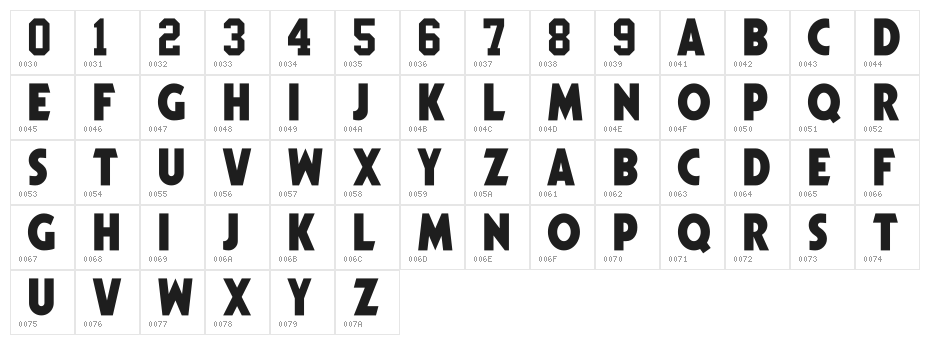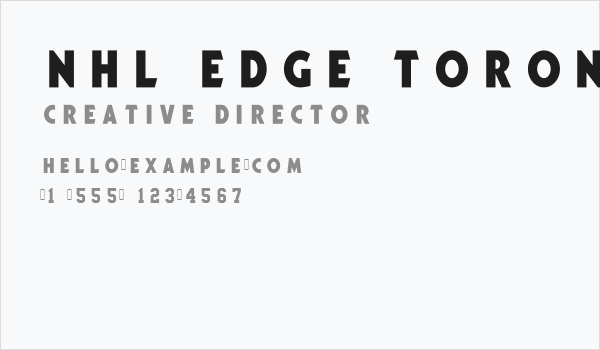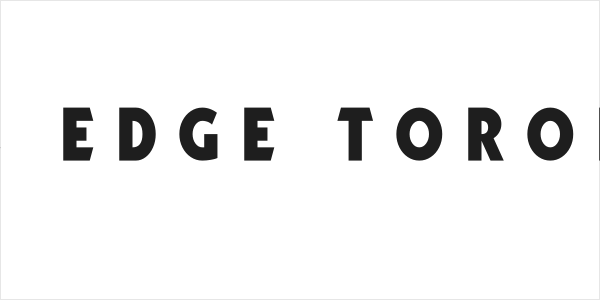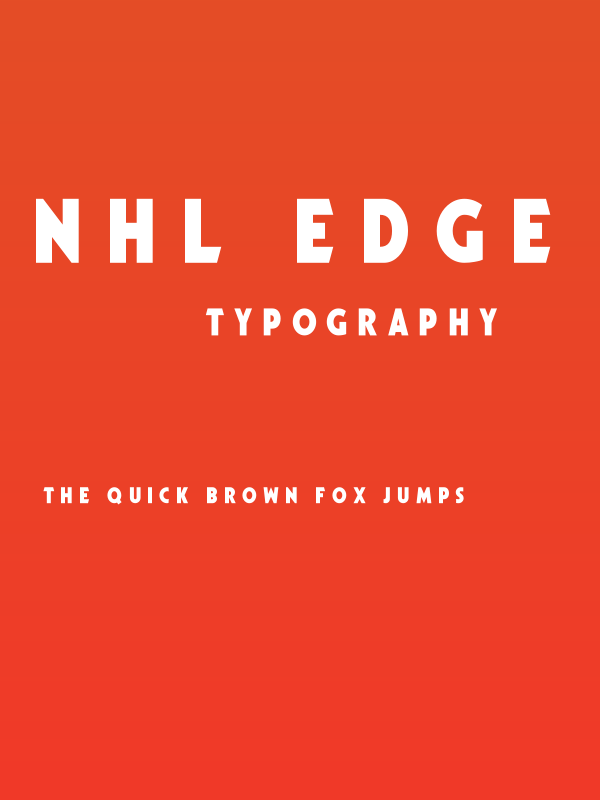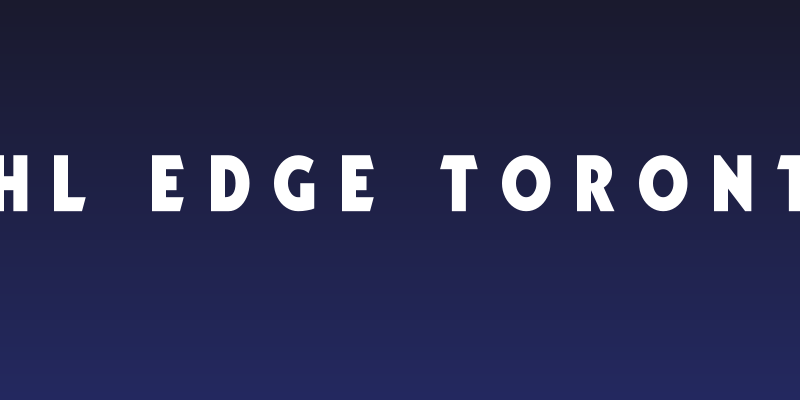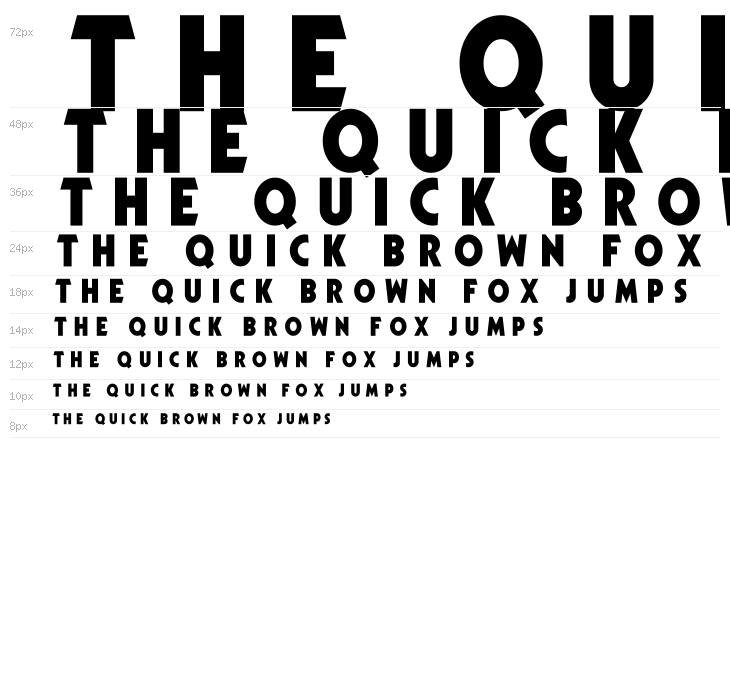
NHL Edge Toronto Font
NHL Edge Toronto Description
This font features bold, geometric letterforms with a strong, impactful presence. The uppercase letters are uniform in height, with sharp angles and clean lines that convey a sense of strength and modernity. The numbers are similarly styled, with a blocky, robust appearance that complements the letters. The font lacks lowercase letters, focusing instead on a consistent, uppercase style that is ideal for making a statement. The special characters are designed to match the boldness of the alphanumeric characters, ensuring a cohesive look across all elements.
| Use Case | Logos, Headlines, Branding |
| Proposed Projects | Ideal for sports team branding, merchandise, posters, and any project requiring a bold, modern typeface. |